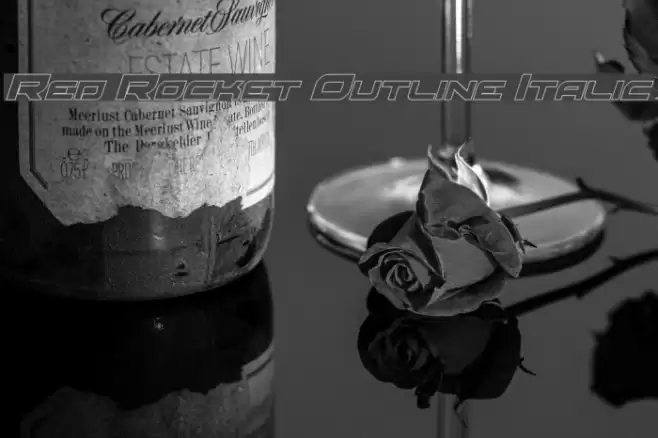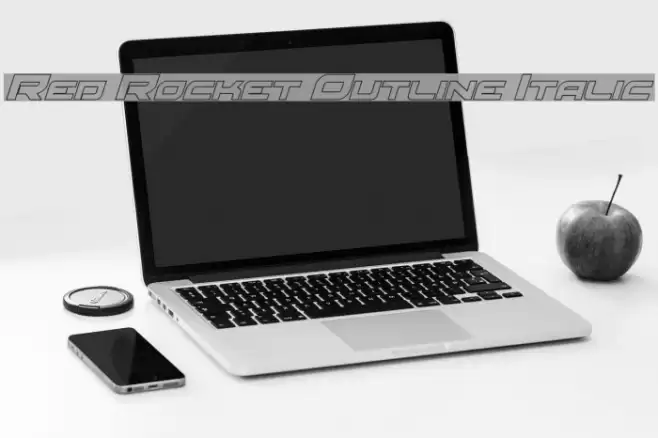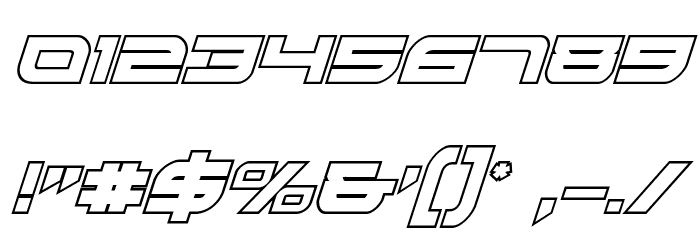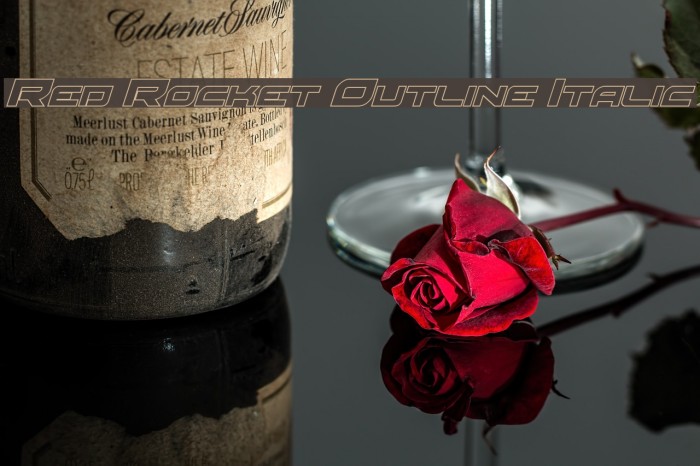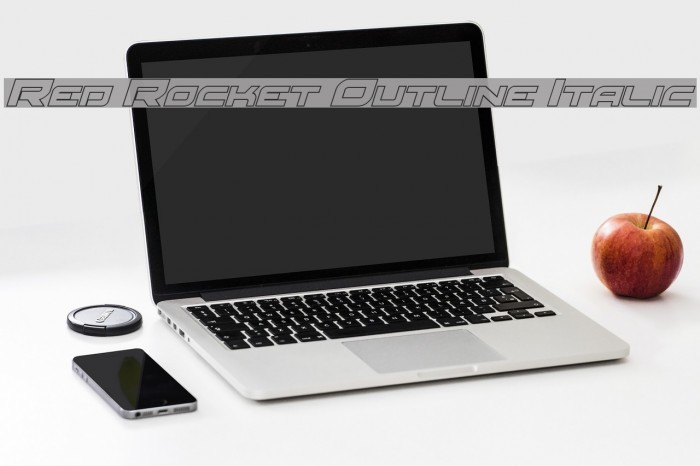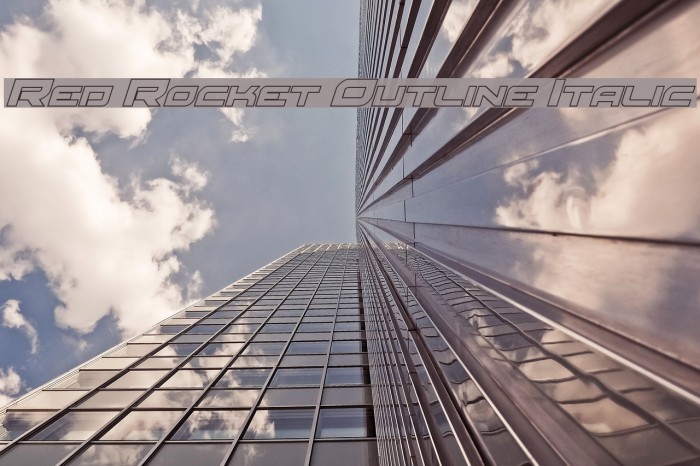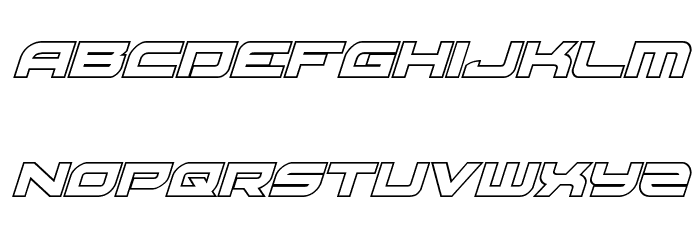
Red Rocket Outline Italic Font
Red Rocket Outline Italic Description
This font features a modern, futuristic design with an outline style that gives it a sleek and aerodynamic appearance. The characters are italicized, adding a sense of motion and speed, which is further emphasized by the angular and geometric shapes of the letters. The uppercase and lowercase letters maintain a consistent style, with sharp edges and clean lines. The numbers and special characters are designed to match the overall aesthetic, making the font versatile for various uses. Its unique outline style makes it stand out, ideal for projects that require a bold and dynamic look.
A modern, italicized outline font with a futuristic and dynamic design from Uncategorized fonts.
- Proposed Projects: Ideal for sci-fi themed projects, video game titles, futuristic branding, and dynamic posters.